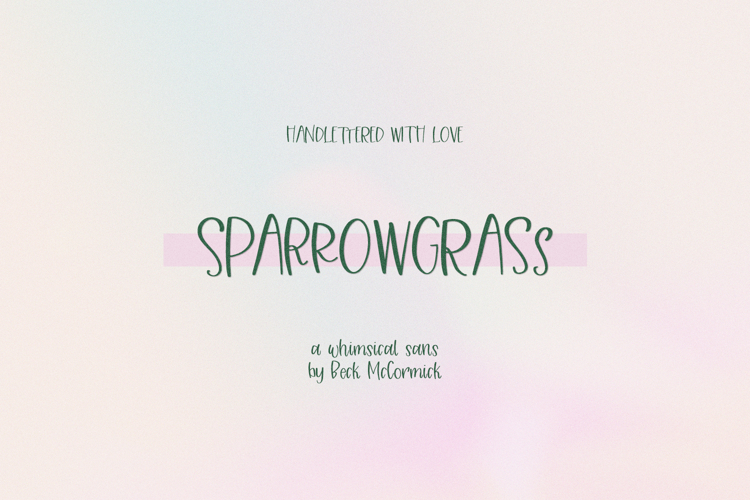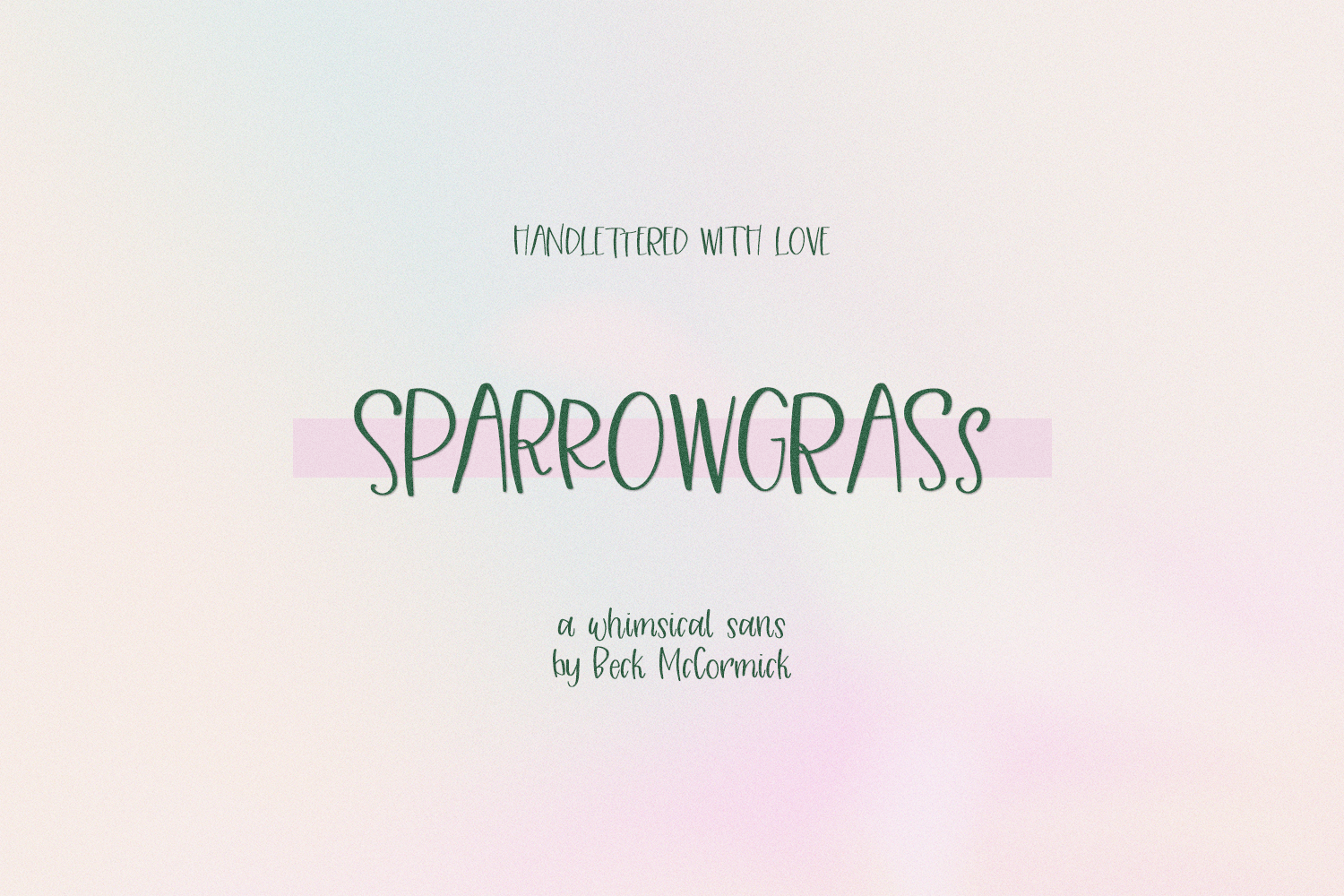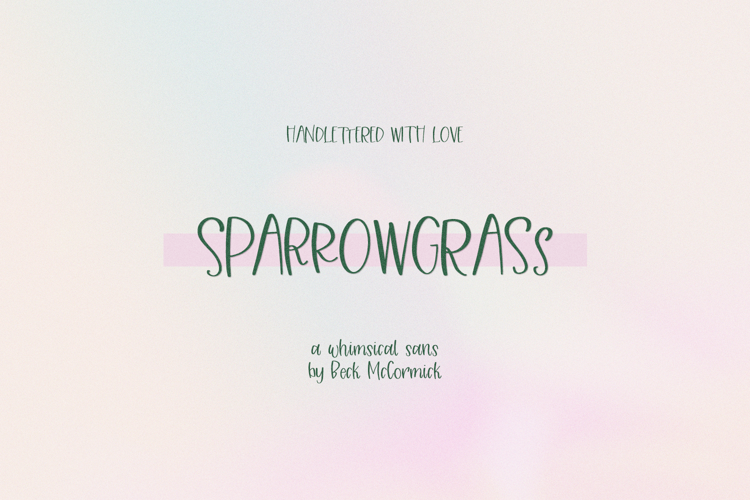
Sparrowgrass Sans
Sparrowgrass Sans is a hand lettered font with fun ligatures and a few alternates. Sparrowgrass Sans is perfect for logos & branding, greeting cards, painted banners, digital planners, note-taking apps, Canva, Cricut projects, Silhouette projects, designing SVG files, laser cutting projects, & more.
Sparrowgrass Sans includes:
- 30 ligatures - BB, CC, DD, EE, FF, GG, KK, LL, MM, NN, OO, PP, RR, SS, TT, bb, cc, dd, ee, ff, gg, kk, ll, mm, nn, oo, pp, rr, ss, tt
- 5 alternates - i x3, j x2